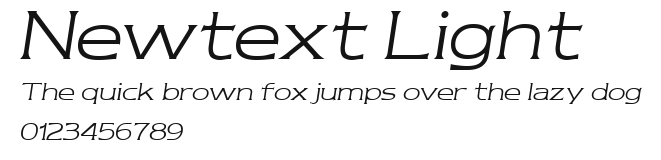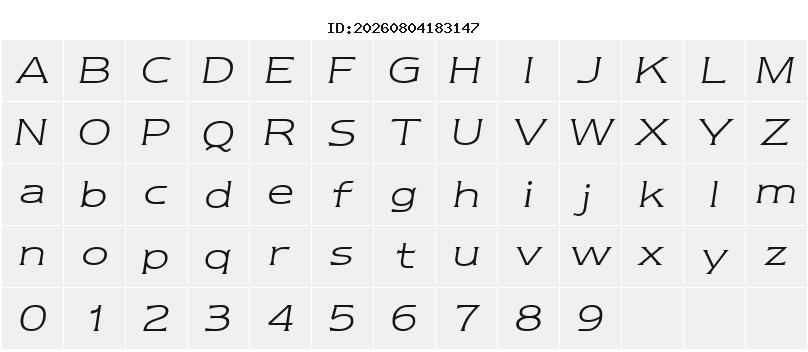
• Font Name: Newtext Light
• Full Font Name: Newtext Light Italic
About Newtext Light.ttf
Newtext Light.ttf is a modern, elegant sans-serif font designed for ultimate readability and visual harmony. Perfect for branding, headlines, web design, and print materials.